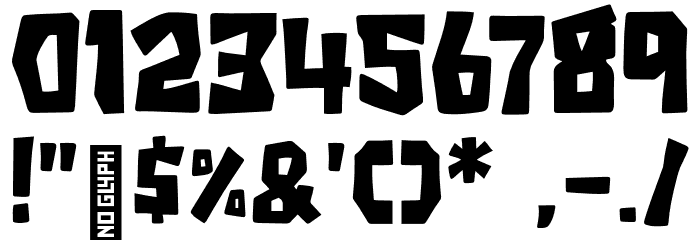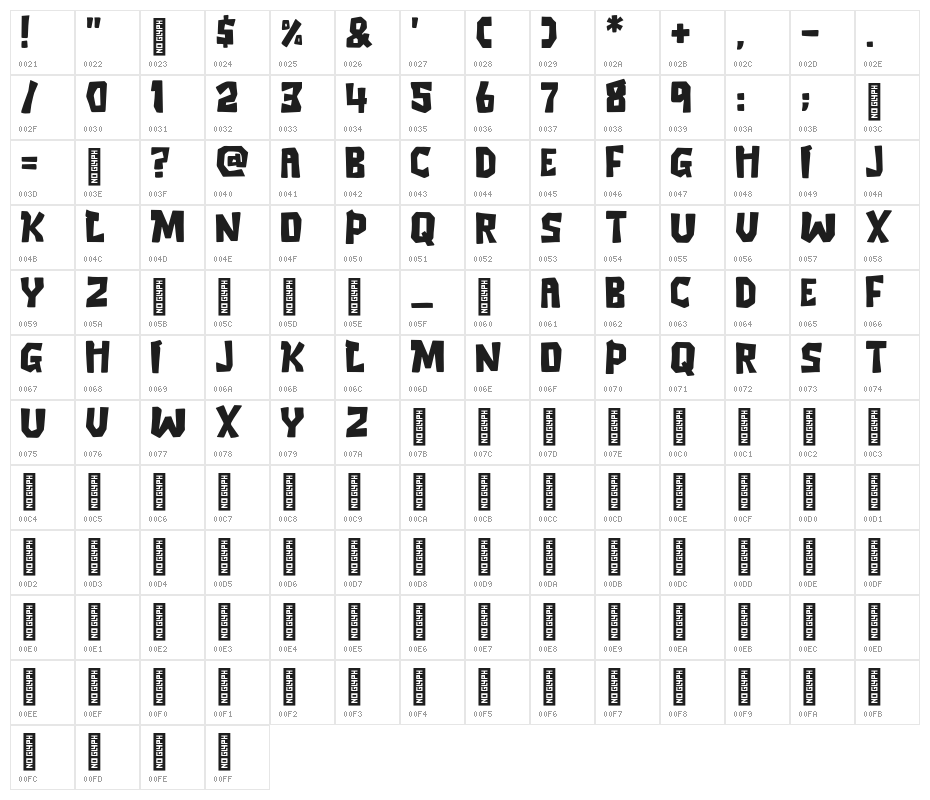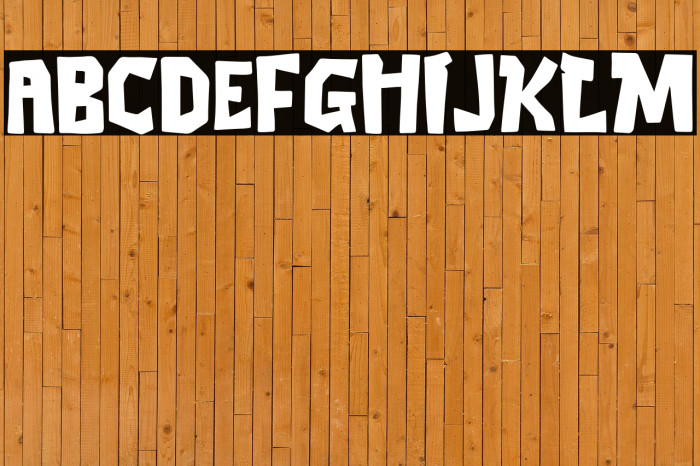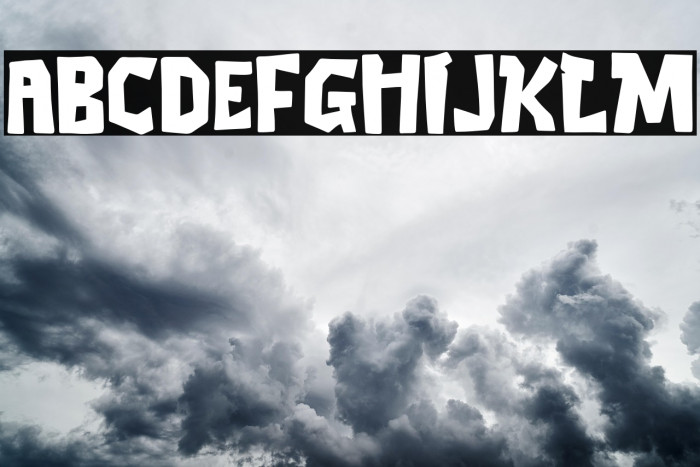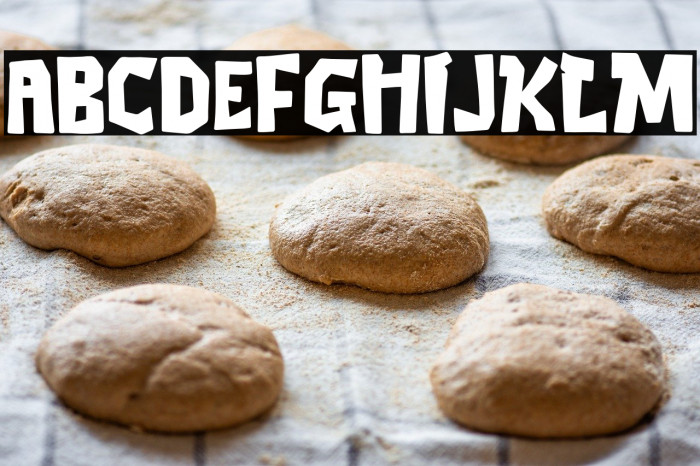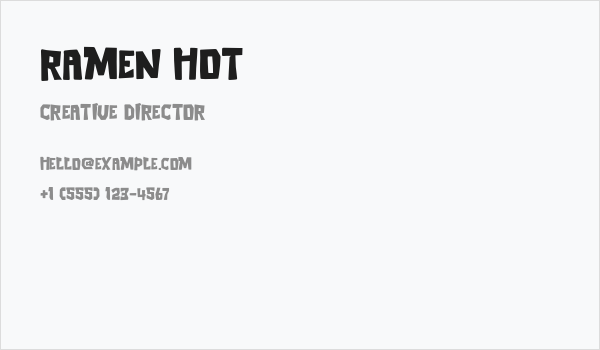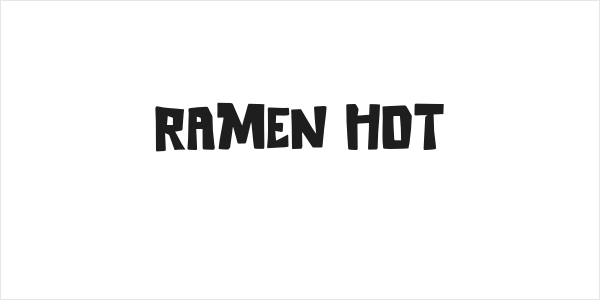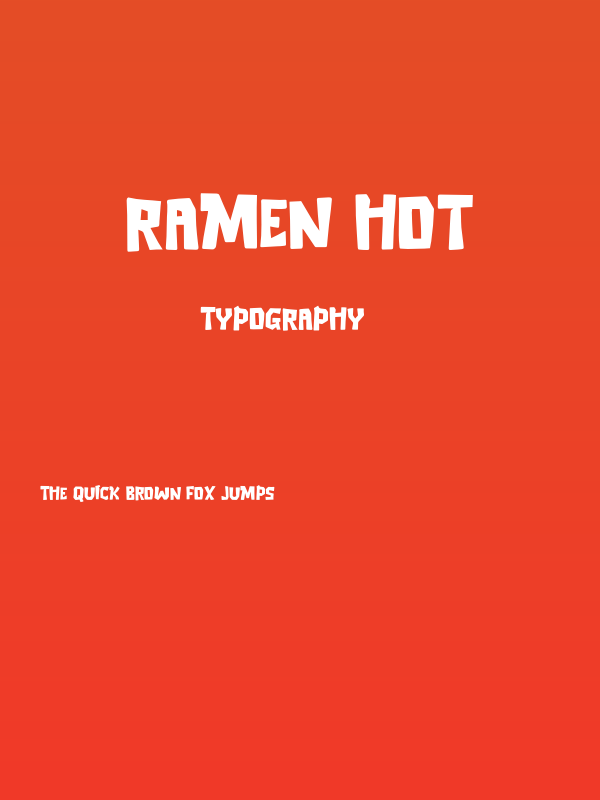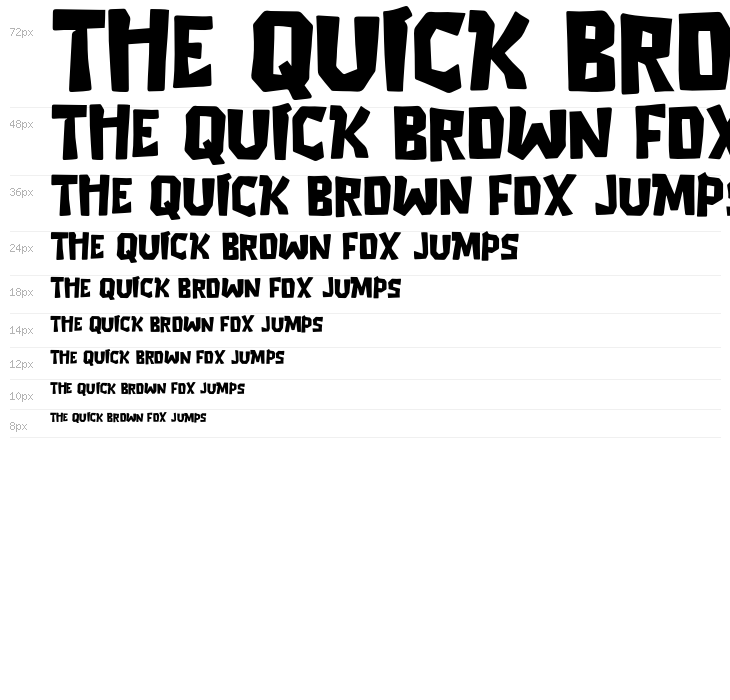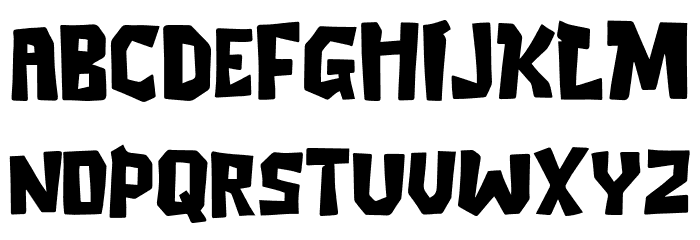
Ramen Hot Font
Ramen Hot Description
This font features a bold and dynamic style with a distinctly angular and geometric design. The characters are thick and robust, with sharp edges and a slightly irregular form that gives it a hand-crafted appearance. The uppercase and lowercase letters maintain a consistent weight, creating a cohesive look across the alphabet. The numbers and special characters follow the same design principles, ensuring uniformity throughout. The font's unique style makes it stand out, with a playful yet assertive presence that captures attention. Its boldness and distinctive shapes make it suitable for projects that require a strong visual impact.